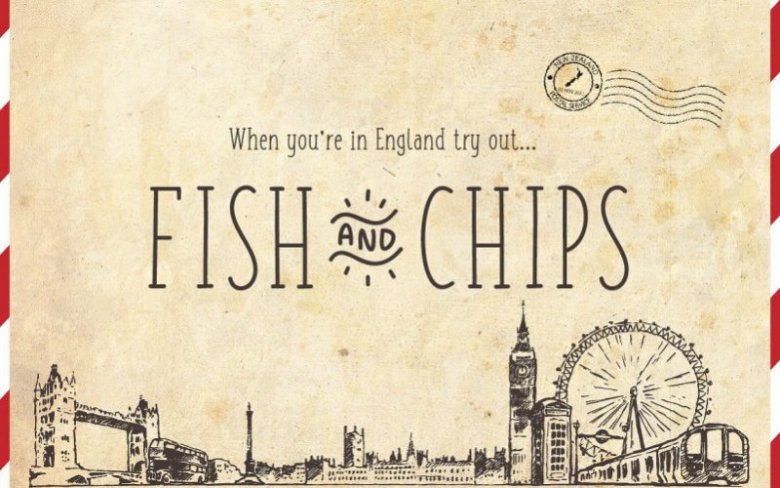
Fish And Chips Handwritin Font
Fish And Chips Handwritin Font can be described as a mix of cookies and milk and Skybird since it has a character thats handwritten, tall and thin. By adding Serifs and constructing the glyphs in a more strict grid it gets a clean and yet loosened look. It also features numbers, symbols and language Support. Fish and Chips is free for personal use only, so for any commercial use please buy an license.